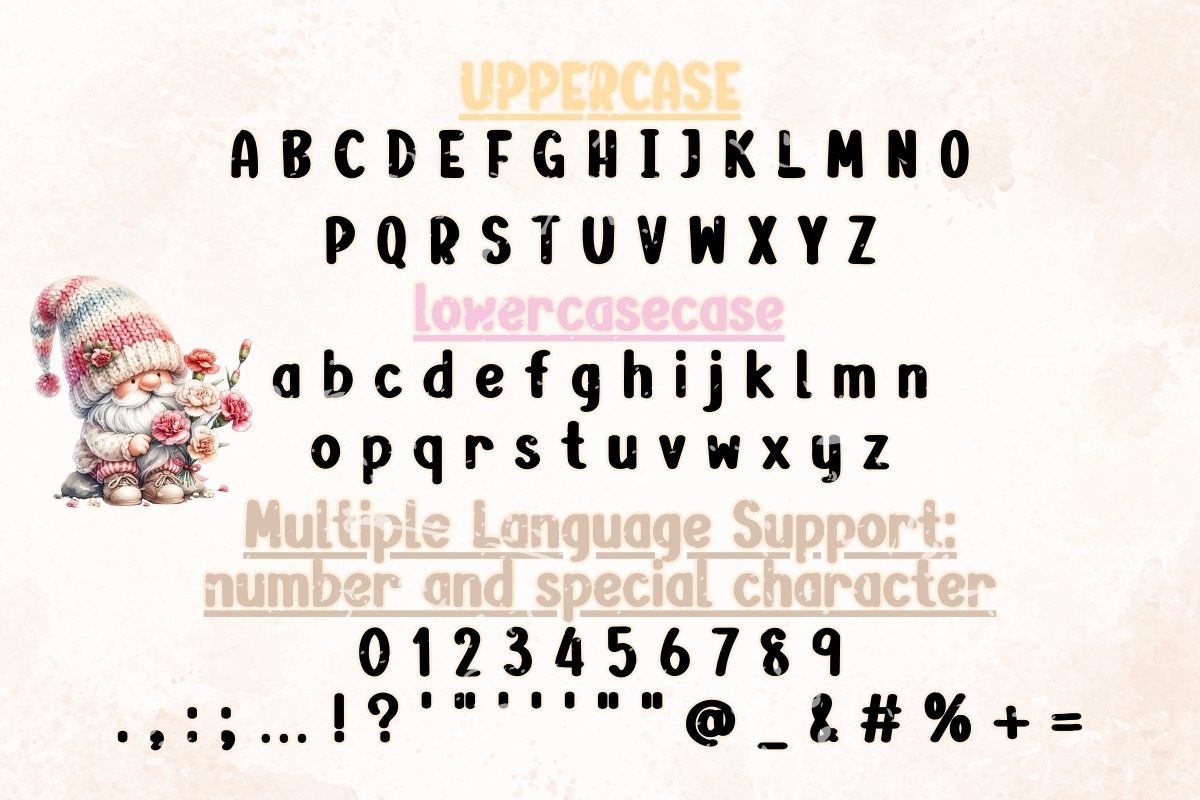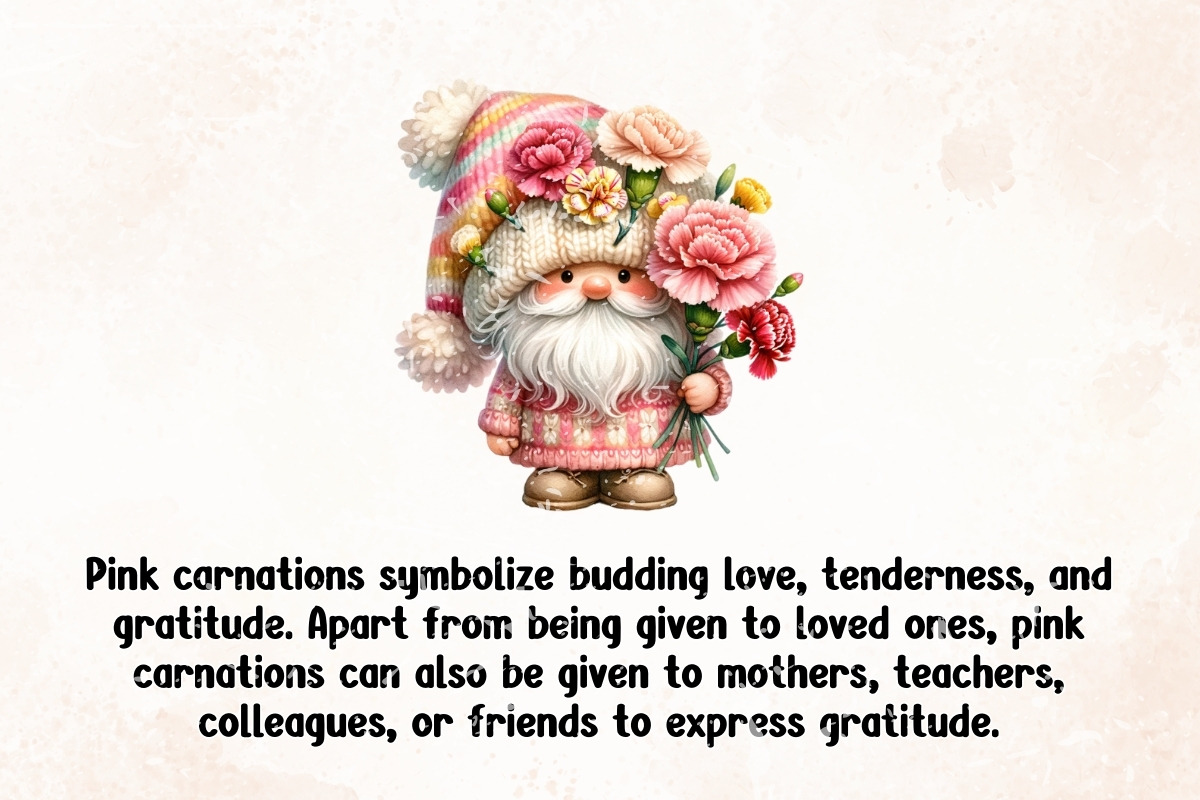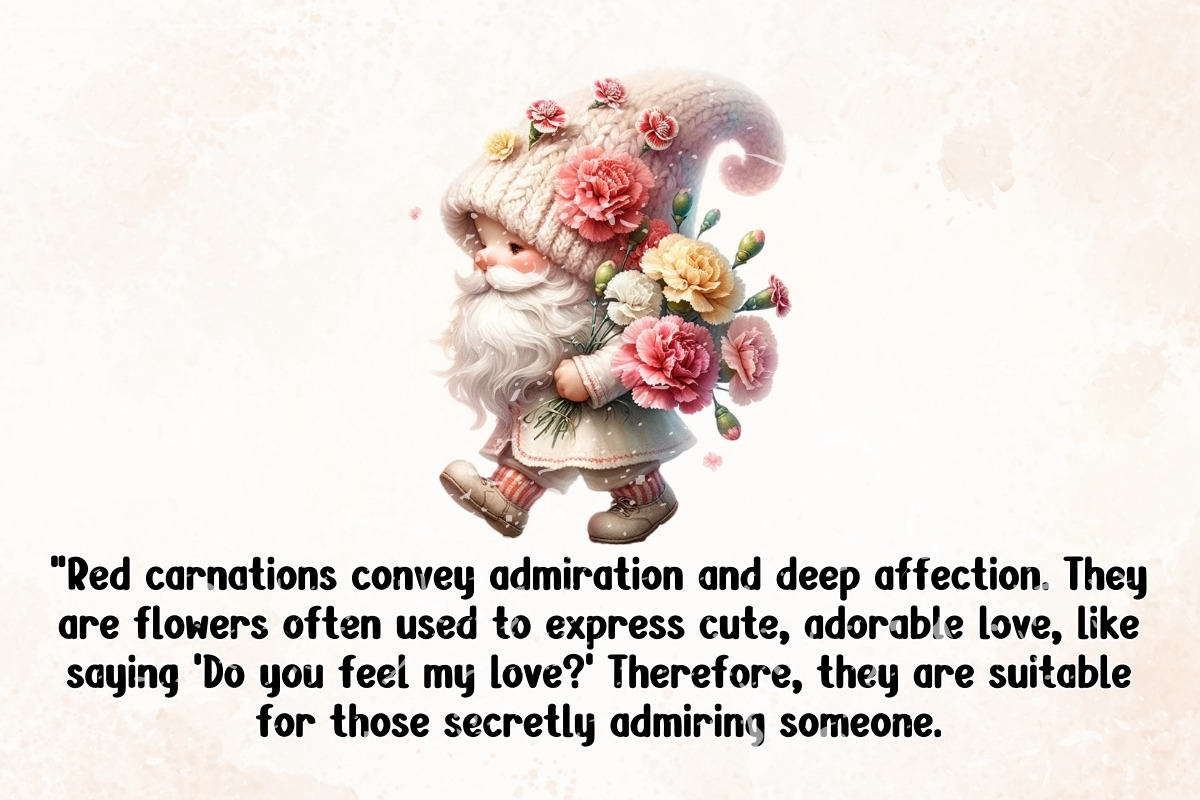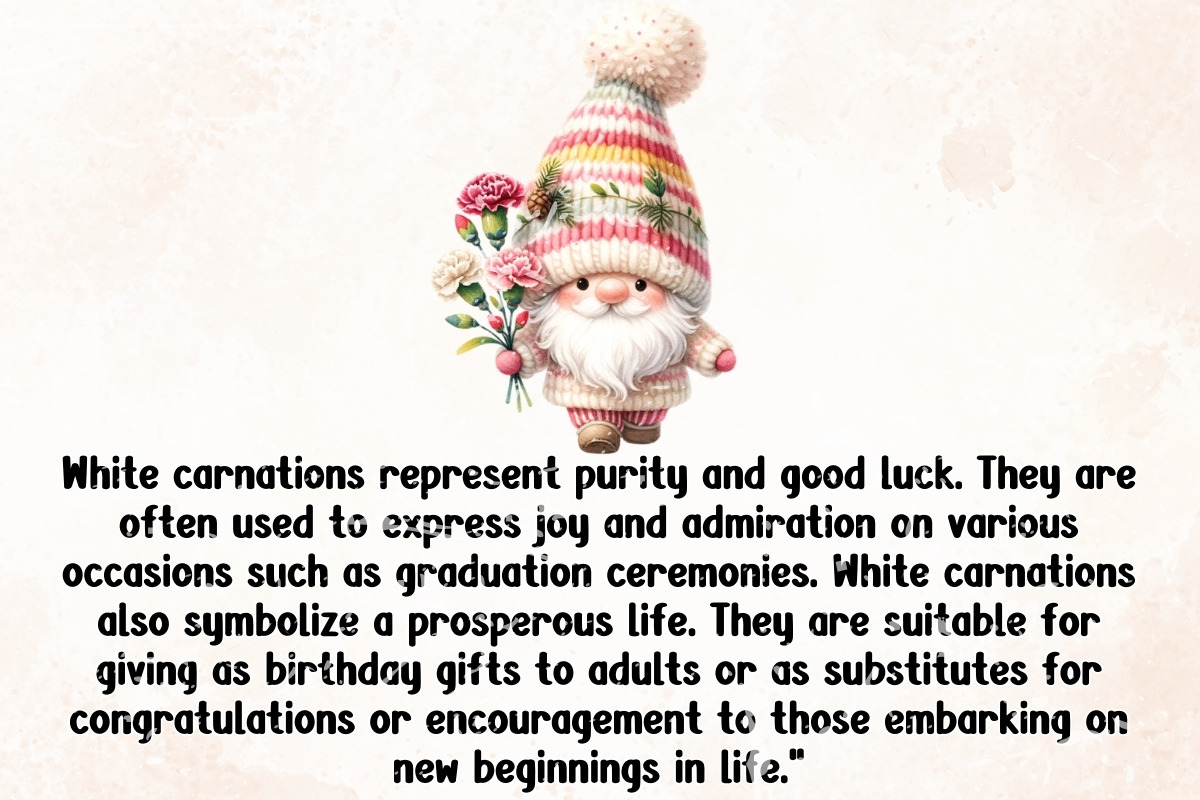
CARNATION LOVER - Handwriting
Introducing "Carnation Lover" - a whimsical and enchanting handwritten font that exudes charm and elegance. With its graceful curves and playful strokes, this font is perfect for adding a touch of romance and warmth to your projects. Whether you're designing wedding invitations, greeting cards, or crafting lovely quotes, "Carnation Lover" will infuse your creations with a sense of sweetness and sophistication. Let your imagination bloom with this delightful font.